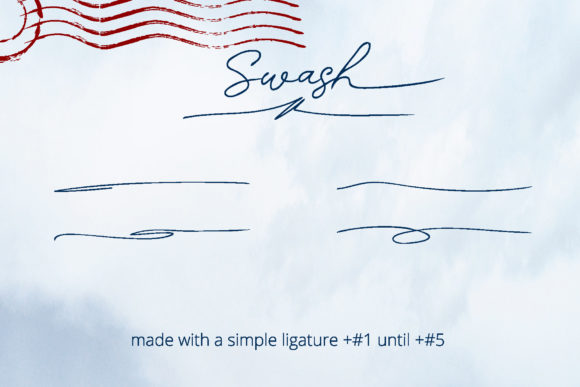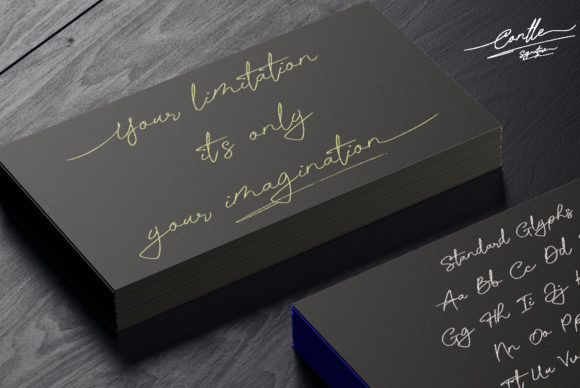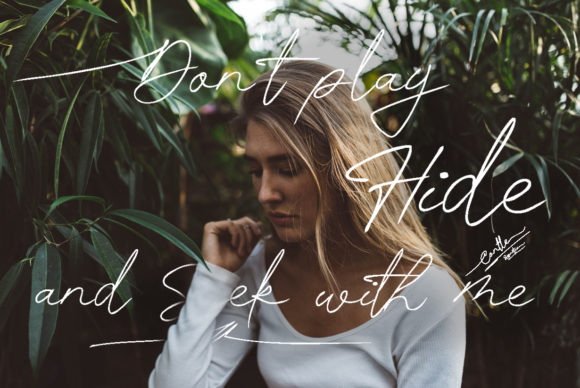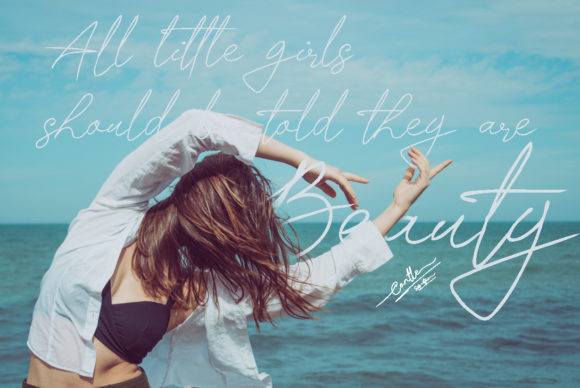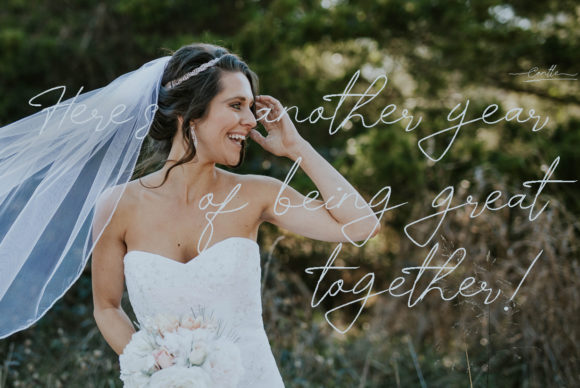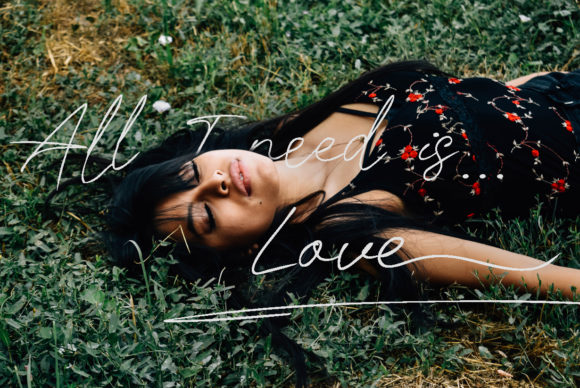
Introducing Contle Font: Elevate Your Designs with Elegance and Sophistication
In the world of typography, fonts play a crucial role in conveying the tone and personality of a design. For designers and crafters seeking to add a touch of elegance and sophistication to their work, Contle Font is an exceptional choice. This stylish and incredibly elegant script font is perfect for a variety of design projects, including wedding invitations, thank you cards, quotes, greeting cards, logos, business cards, and more.
What Makes Contle Font Stand Out?
Contle Font boasts a unique and refined aesthetic that sets it apart from other script fonts. Its elegant strokes, beautiful connections, and flowing curves create a sense of luxury and refinement, making it ideal for designs that require a high level of sophistication. Whether you’re working on a wedding invitation, a branding project, or a personal craft, Contle Font is sure to impress.
Wedding designers and event planners, rejoice! Contle Font is a match made in heaven for wedding invitations, save-the-date cards, and other event-related designs. Its romantic and elegant feel creates a beautiful first impression, setting the tone for a memorable and special occasion. Use Contle Font to add a touch of sophistication to your wedding stationery, and watch as it elevates the entire design.
Ideal for Branding and Logo Design
For businesses and entrepreneurs looking to create a lasting impression, Contle Font is an excellent choice for logo design and branding projects. Its unique and memorable appearance will help your brand stand out from the competition, conveying a sense of elegance and refinement that will appeal to your target audience. Use Contle Font to create a stunning logo that reflects your brand’s personality and values.
Crafting and DIY Projects
Crafters and DIY enthusiasts, you’ll love Contle Font for your handmade projects! Whether you’re creating personalized gifts, greeting cards, or home decor items, Contle Font adds a touch of elegance and sophistication to your work. Use it to create beautiful quotes, inspirational messages, or simply to add a decorative touch to your crafts.
Key Features of Contle Font
- Elegant and refined design: Contle Font features beautiful strokes, connections, and curves that create a sense of luxury and sophistication.
- Highly versatile: Suitable for a wide range of design projects, including wedding invitations, branding, logos, business cards, and more.
- Easy to read: Despite its elegant appearance, Contle Font remains highly legible, making it perfect for body text and quotes.
Tips for Using Contle Font
To get the most out of Contle Font, here are a few tips to keep in mind:
- Pair with contrasting fonts: Combine Contle Font with a clean, sans-serif font to create a beautiful contrast that adds visual interest to your design.
- Experiment with colors: Contle Font looks stunning in a range of colors, from metallic gold and silver to rich jewel tones.
- Pay attention to spacing: Make sure to adjust the spacing between letters and words to create a balanced and harmonious design.
Contle Font is a stunning script font that offers a unique blend of elegance, sophistication, and versatility. Whether you’re a designer, crafter, or DIY enthusiast, this font is sure to elevate your design projects and add a touch of refinement to your work. With its wide range of applications, from wedding invitations to branding and logos, Contle Font is an excellent addition to any design library.